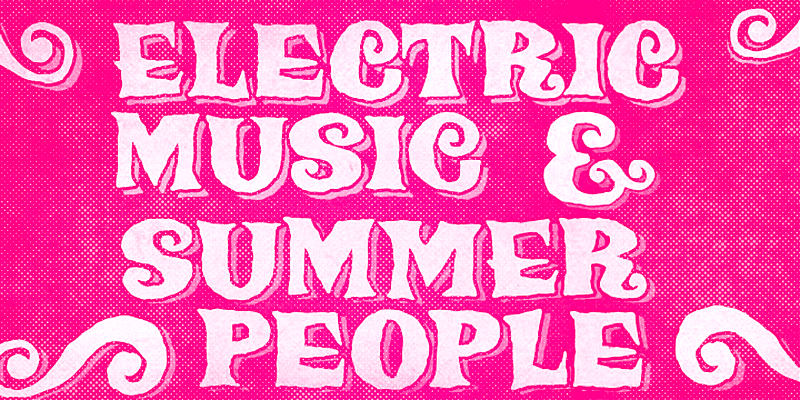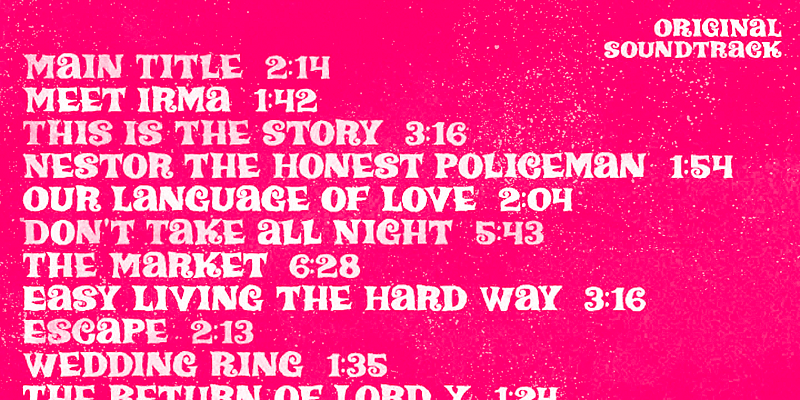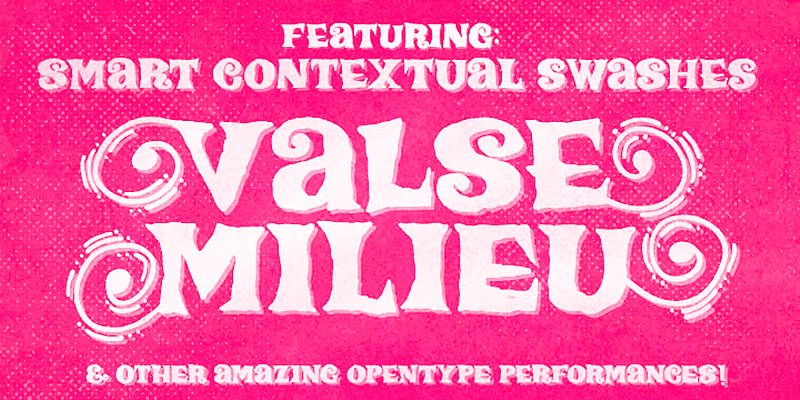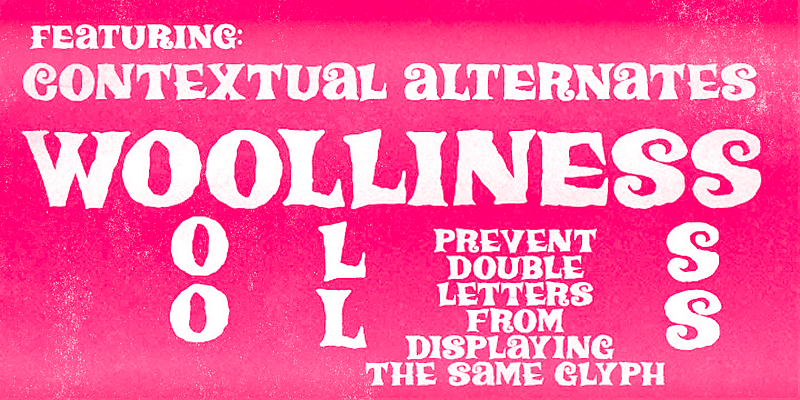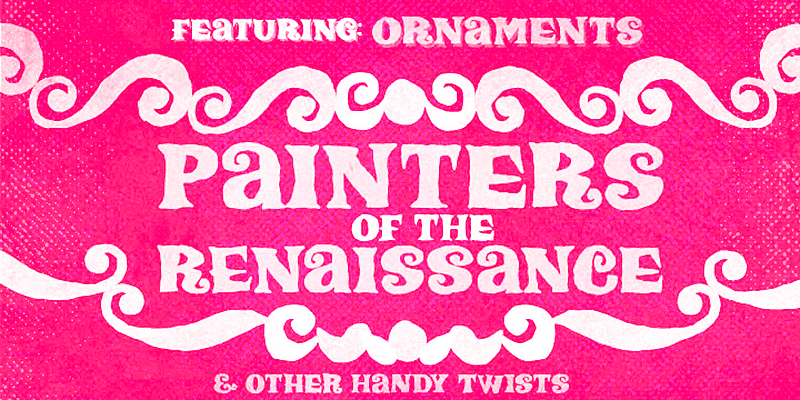
Chez Moustache is a unicase display typeface inspired by the film titles of Irma La Douce. It features two versions of each letter to avoid repetition and keep text playful. Plus! A set of stylistic alternates to add floral flourishes. Whether you’re designing a show poster, boutique label, or anything that needs a theatrical twist, Chez Moustache brings flair with a wink.